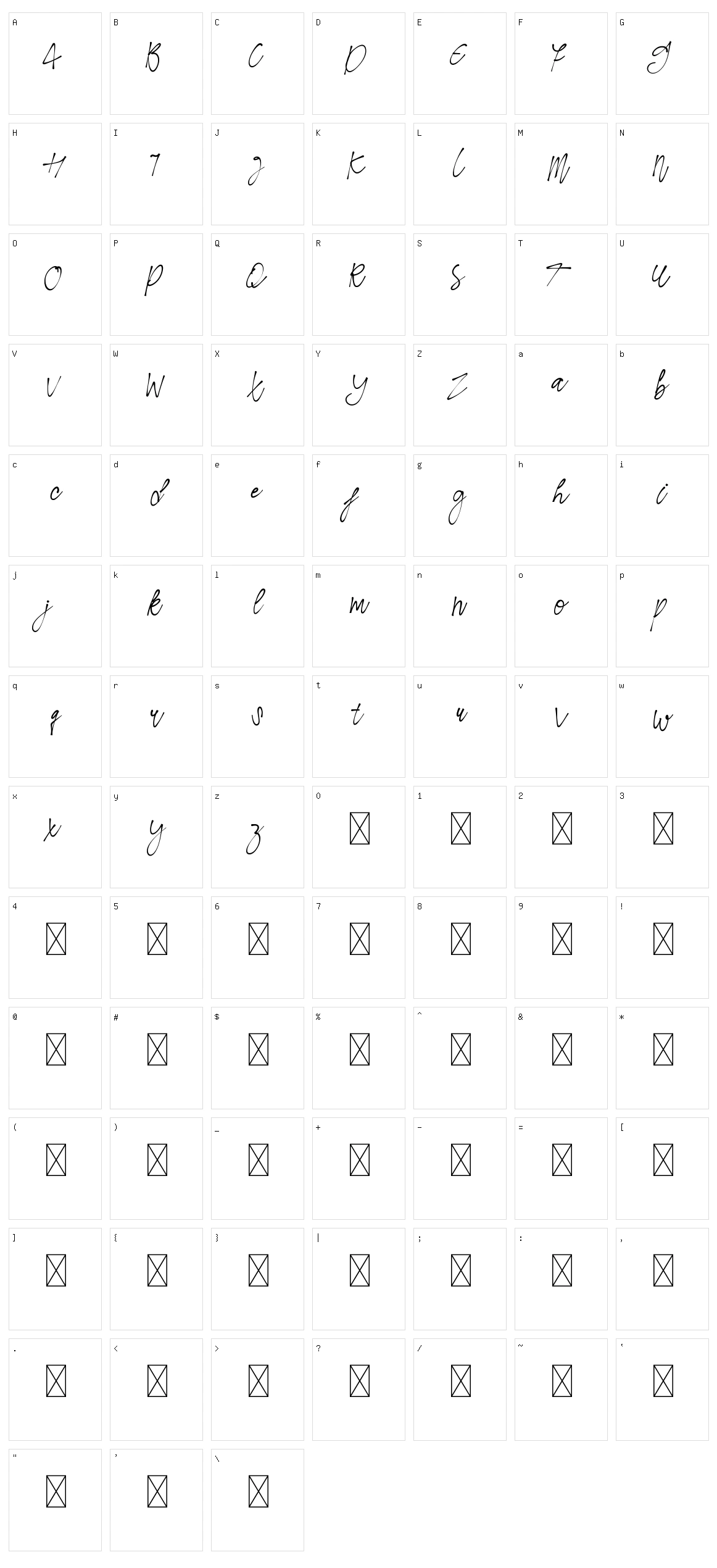
The free font Sendayu is carefully designed by Edric Studio, showcasing a thoughtful balance of creativity and usability and falls under the Script font style. When you download the ZIP file, it contains only 15.77 KB of font files, making it lightweight and quick to download. Please review the license details below to understand permitted usage and distribution rights. If license information is not available, we recommend using this font for personal projects only or contacting the author directly for commercial usage permissions.